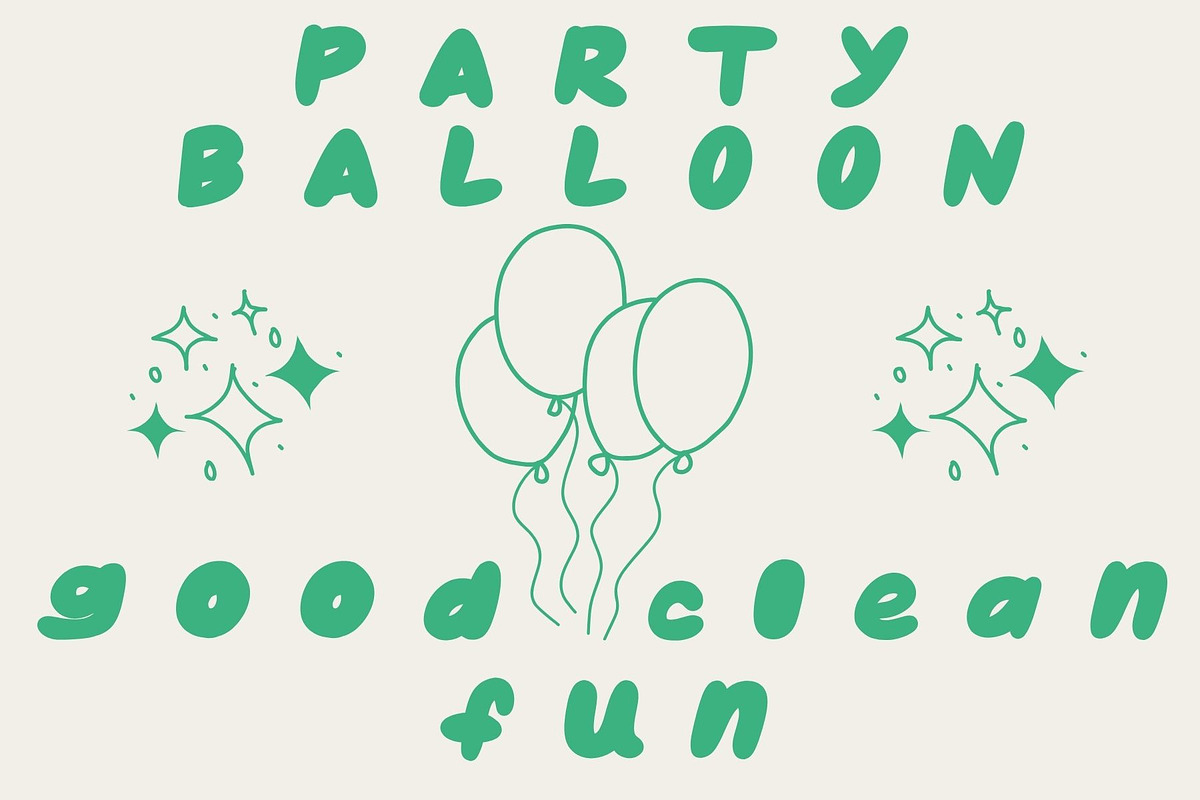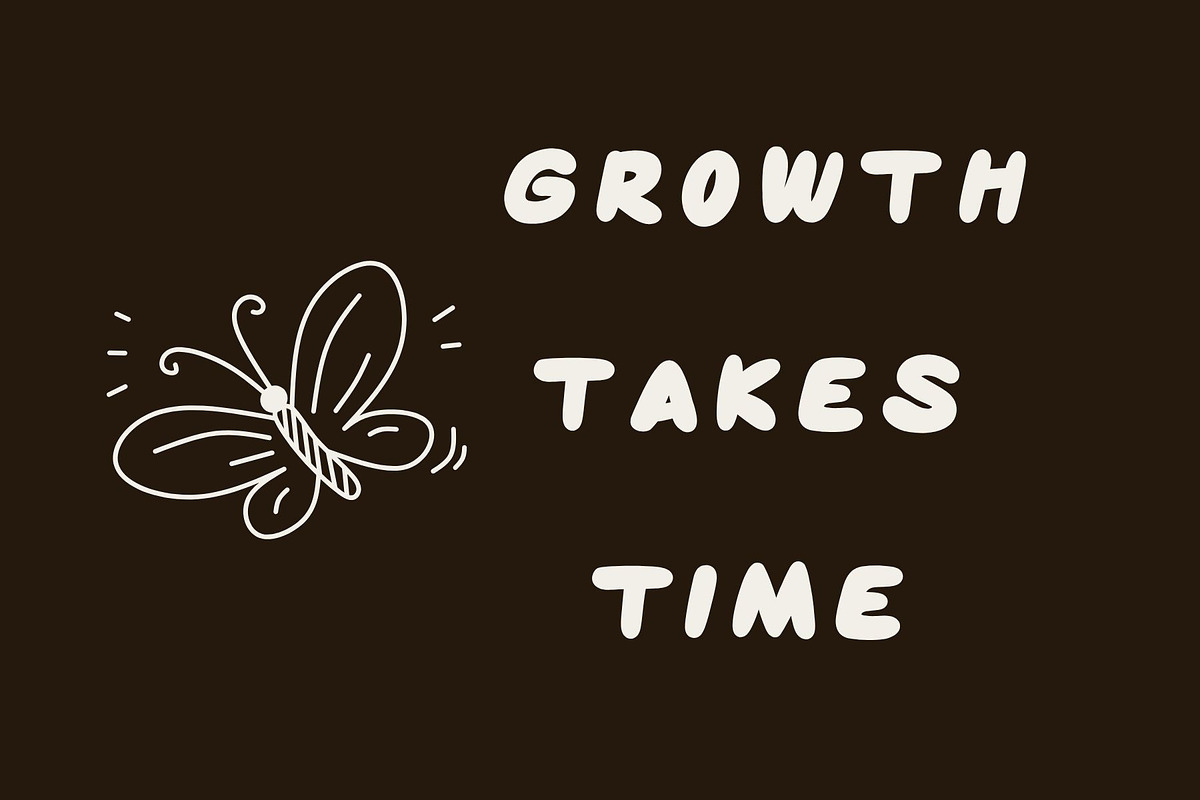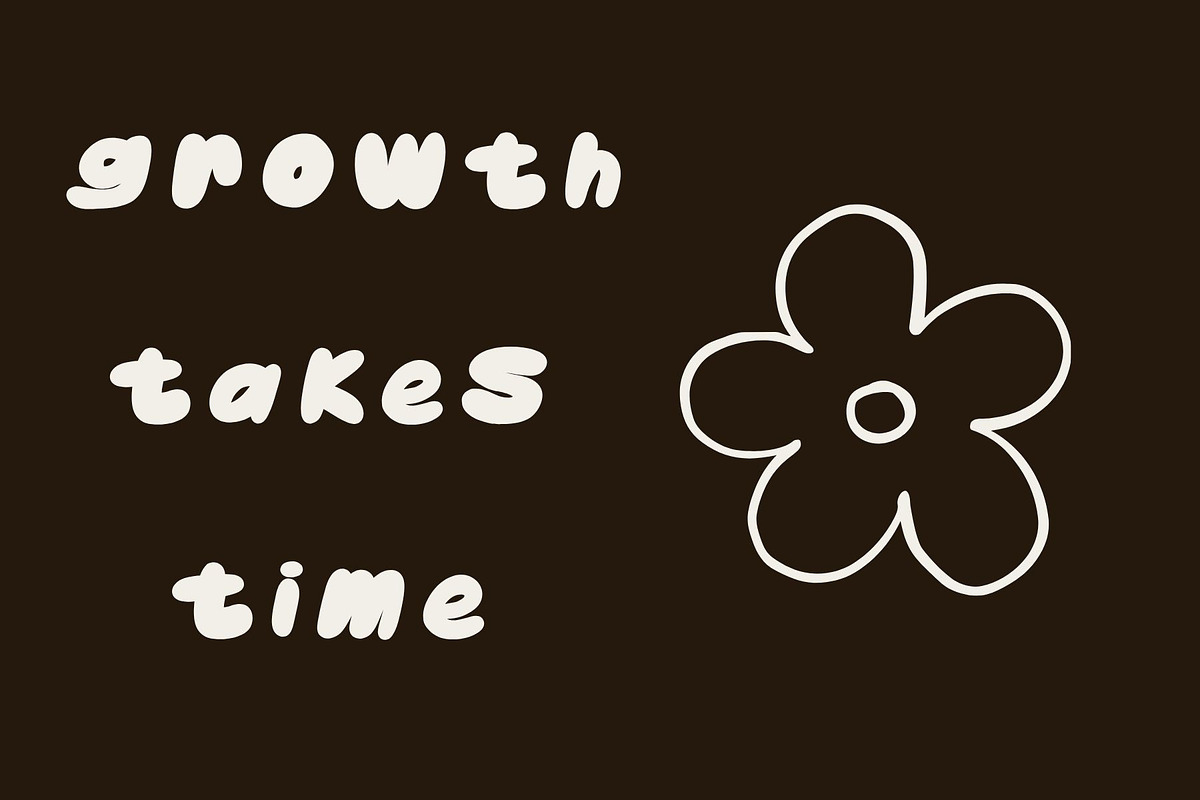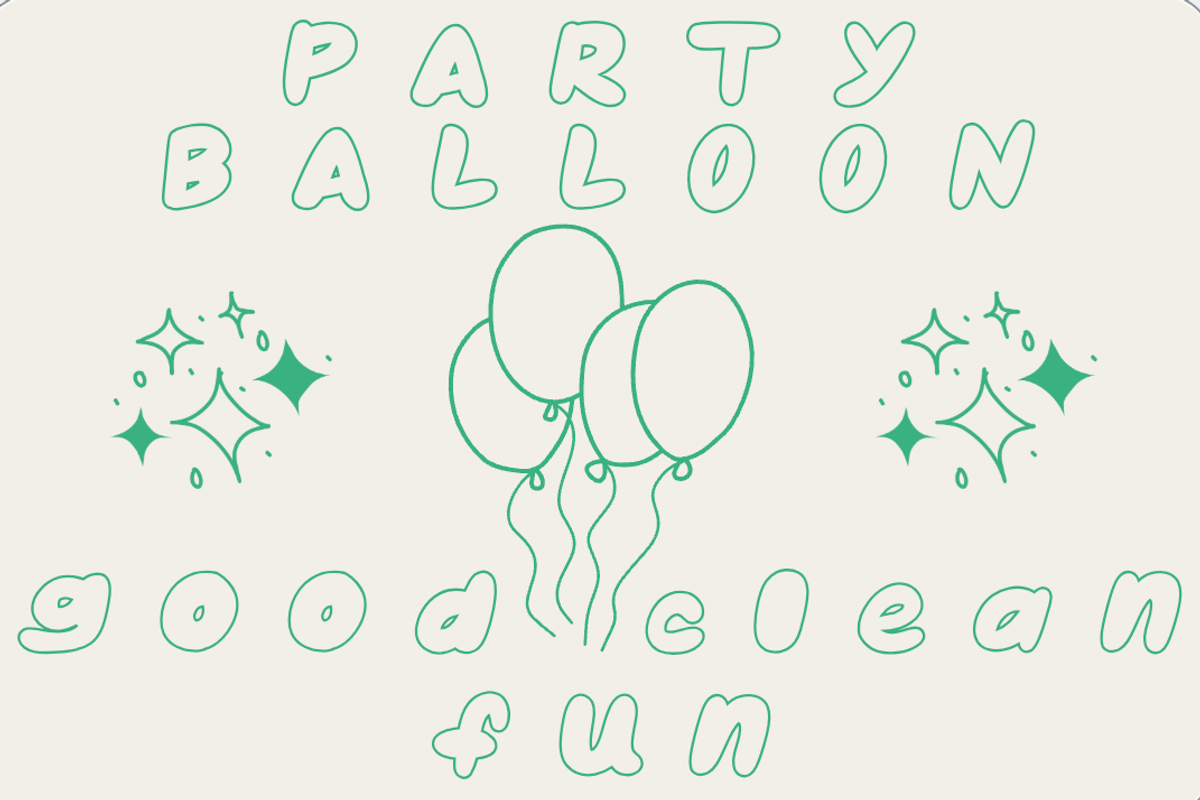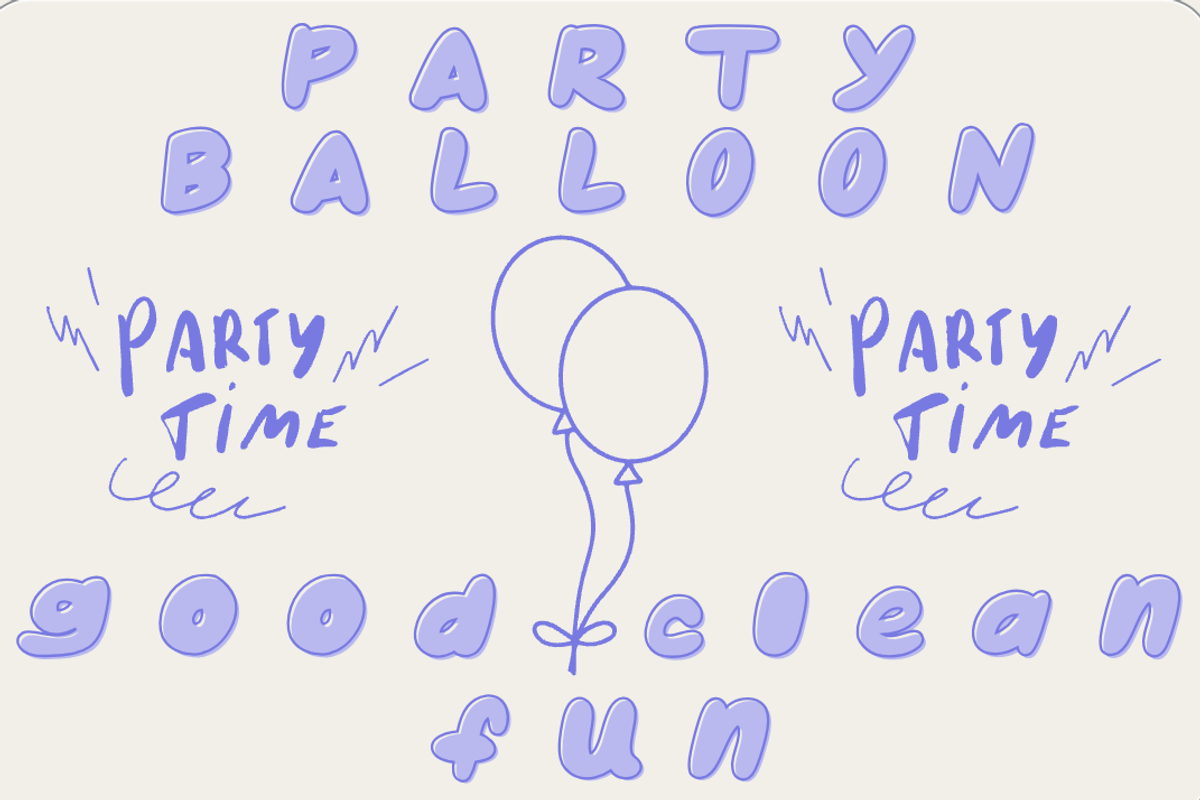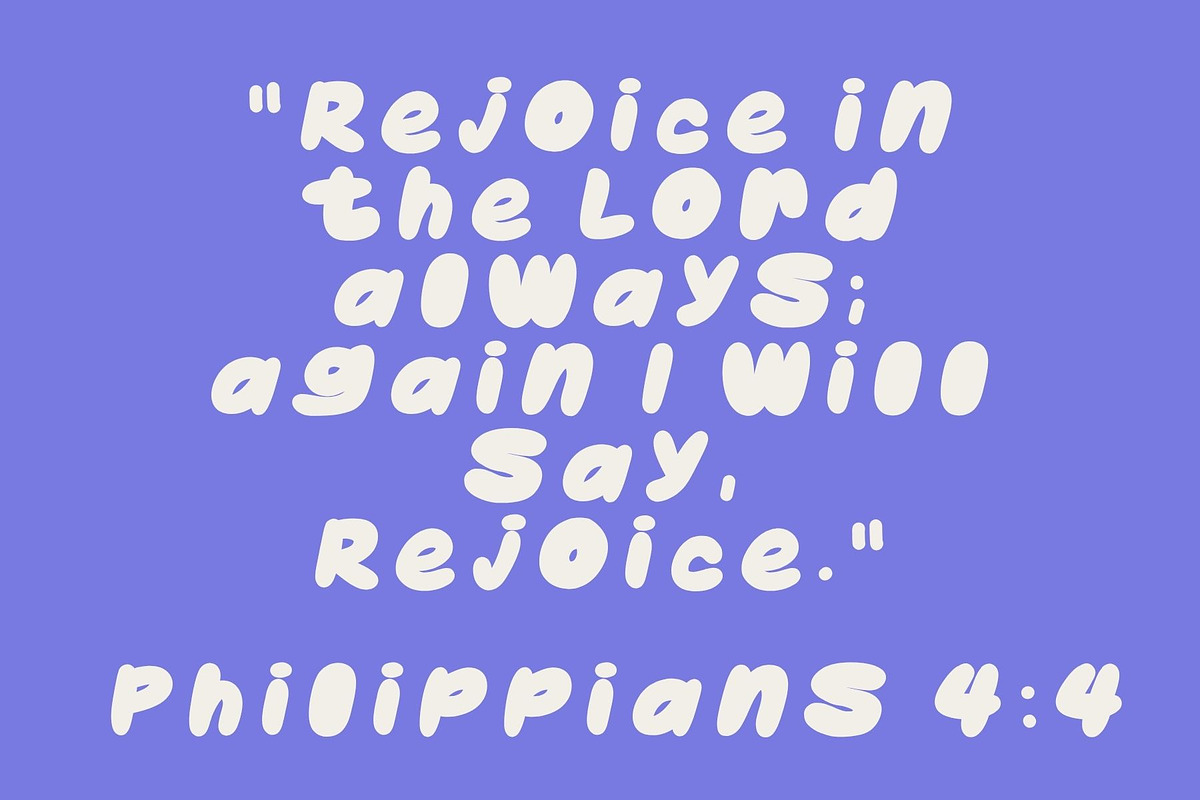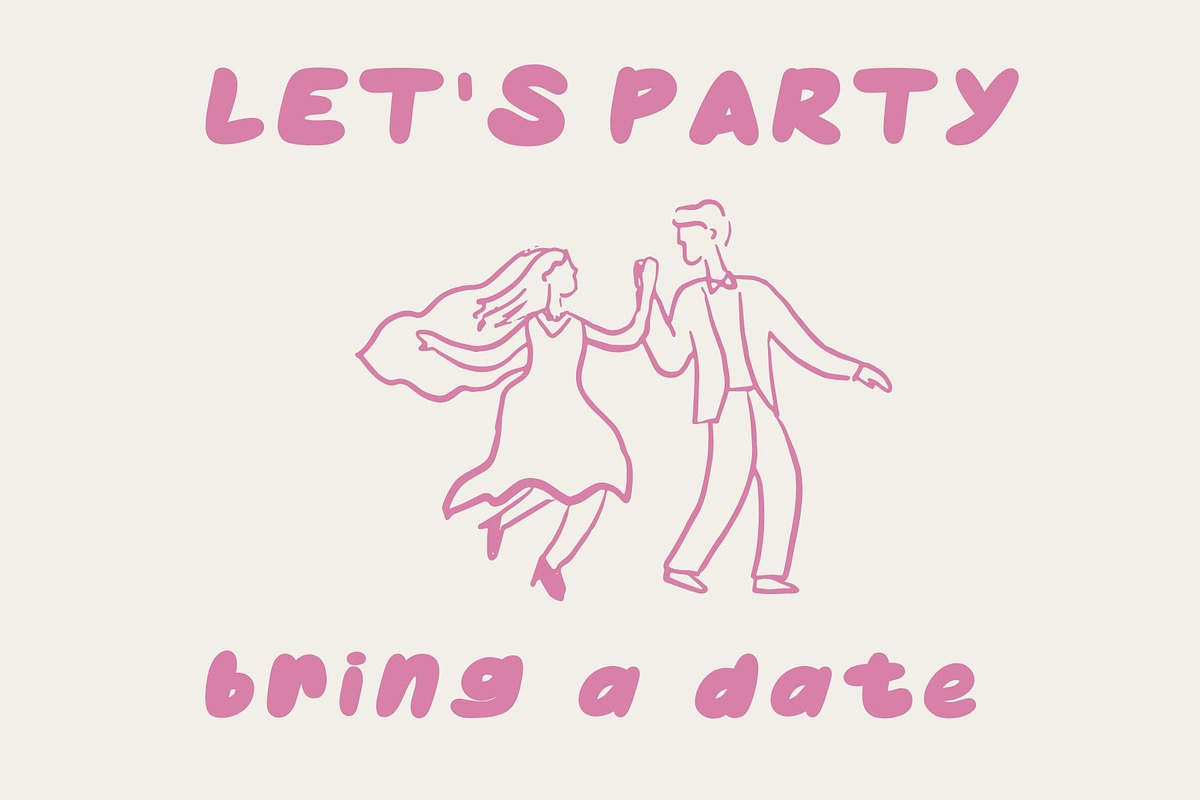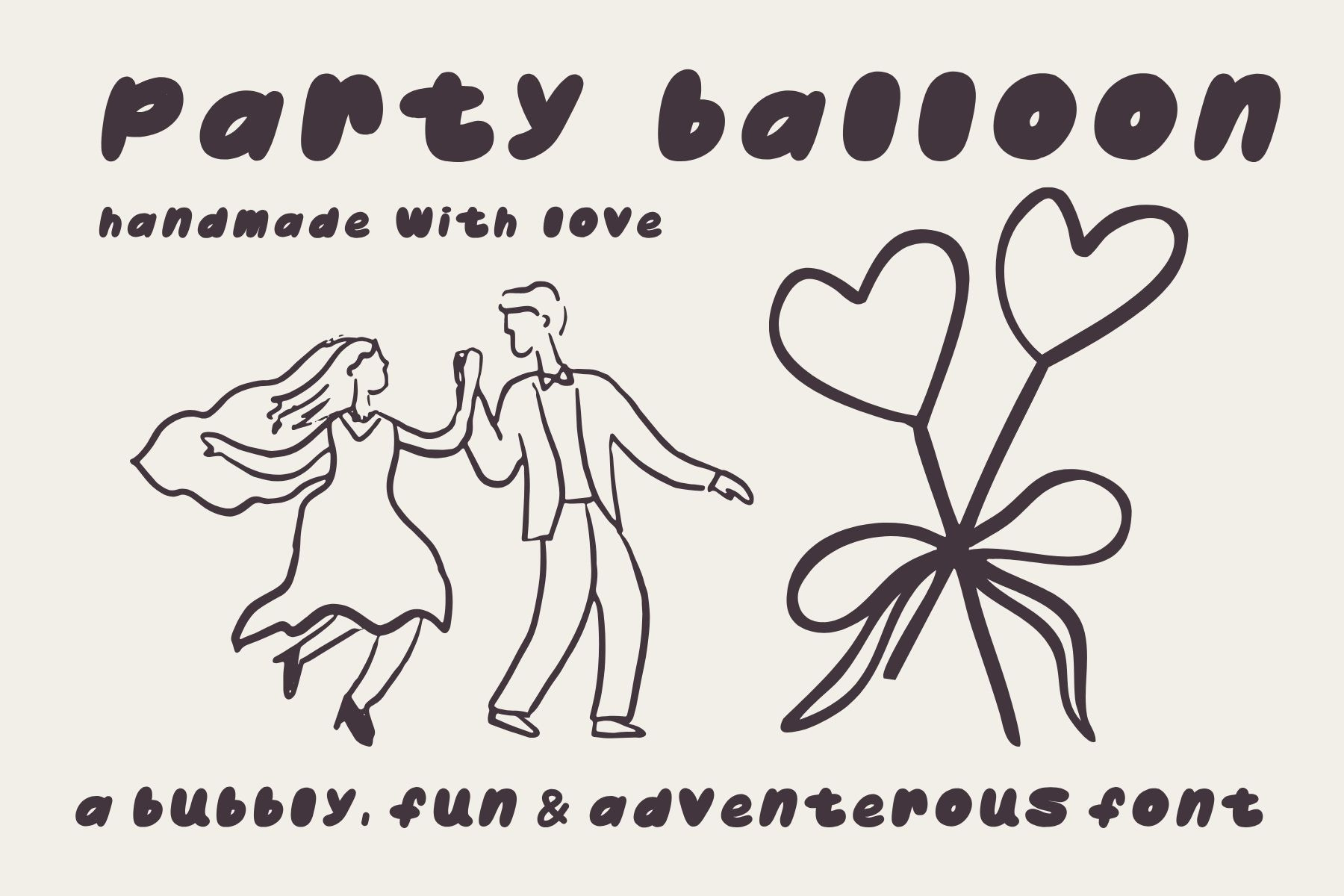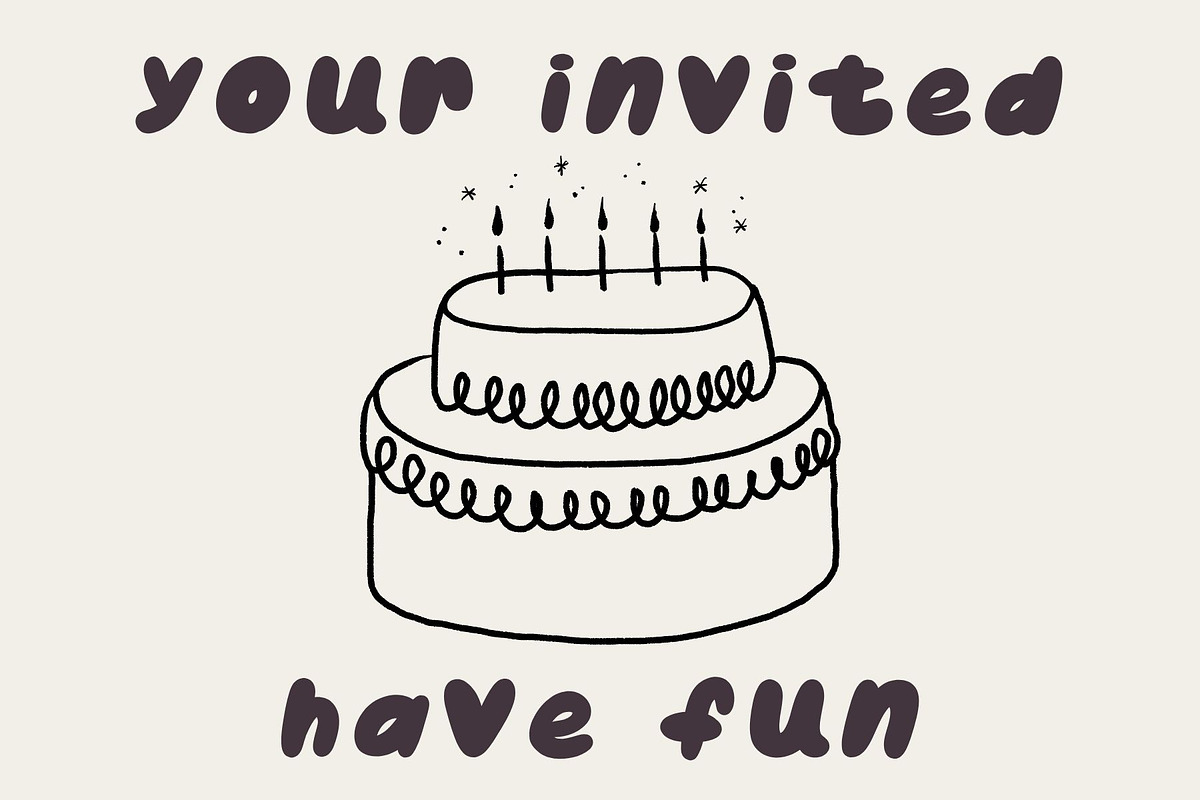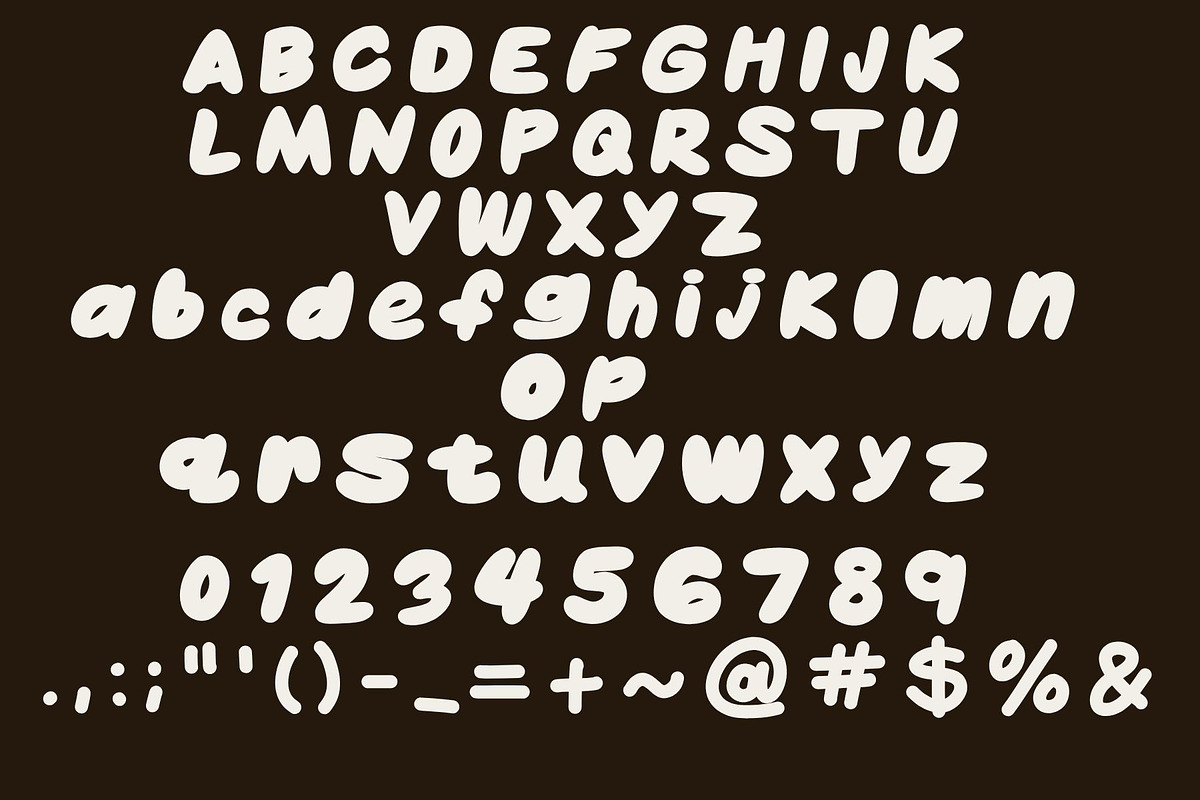
Party Balloon Bubble Font
PARTY BALLOON :
Party Ballon is a clean bubble font , with lots of personality. This font works really well in outline mode, echo , or just filled in with a bright color. It goes wonderfully with illustrations, color, or all black. This font is versatile, and could be used for product design, stationary design , children's books, web design, logo design, or event display... This font's aesthetic is : eye catching, fun , modern, celebratory and pop art . Party Balloon, a carefully and lovingly handmade font with love, without the use of AI, and with the warmth of human hands. I can't wait to see what you create !